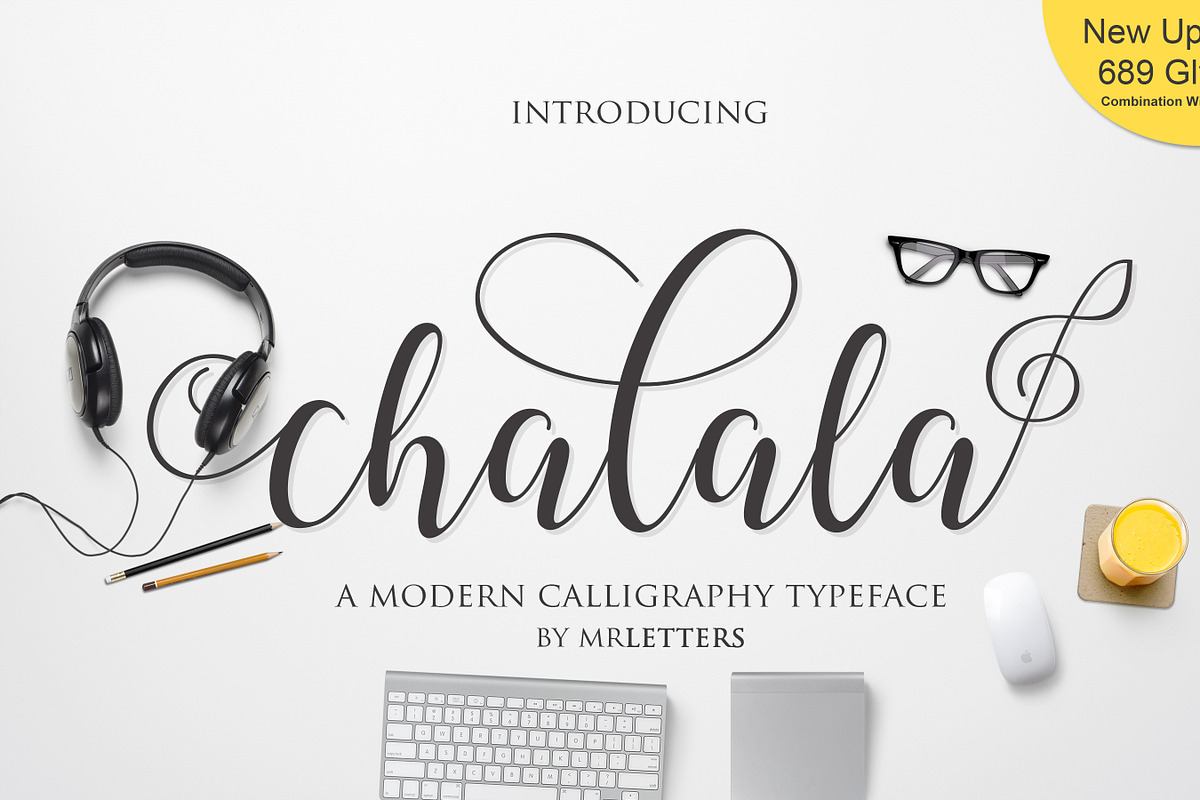
The NEW Chalala Script Font Free Download is an elegant and flowing typeface that brings a sophisticated, handwritten style to your designs. With its smooth curves and graceful strokes, this script font is perfect for creating high-end branding, wedding invitations, logos, and other creative projects that require a personal, elegant touch. Whether you're working on a luxurious brand, an event, or a personal project, NEW Chalala adds a refined charm to your work.
NEW Chalala Script Font Free Download is ideal for designers who want to create timeless, elegant typography. Perfect for invitations, branding, and stylish projects, this font will elevate your designs with its sophisticated flair. Download this beautiful script font today and bring a touch of elegance to your creative work!